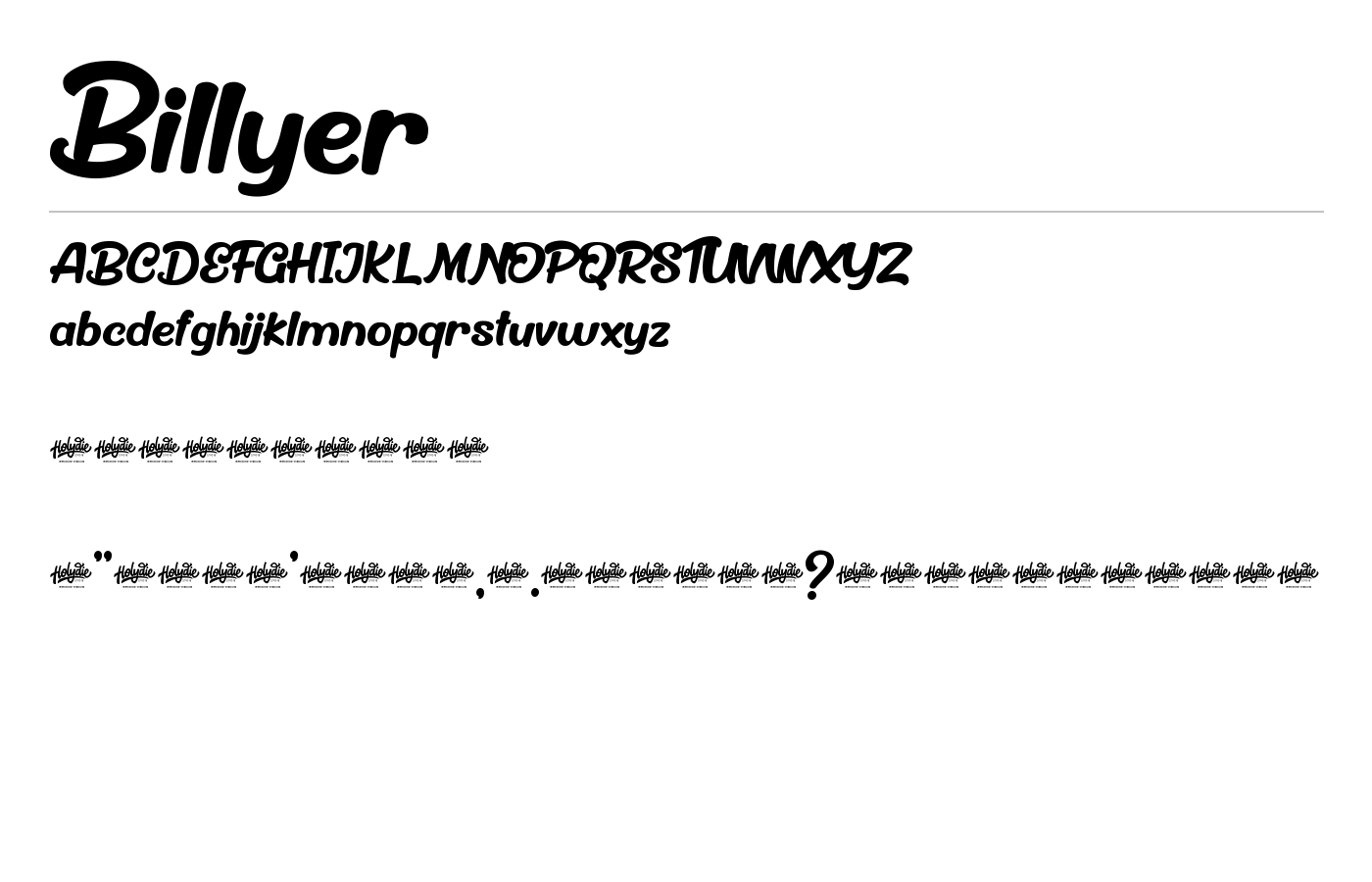
Billyer is a bold, playful script font with smooth, rounded strokes and a casual handwritten feel. Its lively letterforms and balanced weight make it ideal for fun and approachable branding, logos, and headlines that need personality and warmth. This font works especially well in designs seeking a friendly, informal vibe without sacrificing readability.
Billyer Font
About Billyer Font
| Font family | Billyer Font |
| Designer | Yugo Priyat Moko (Holydie Studio) |